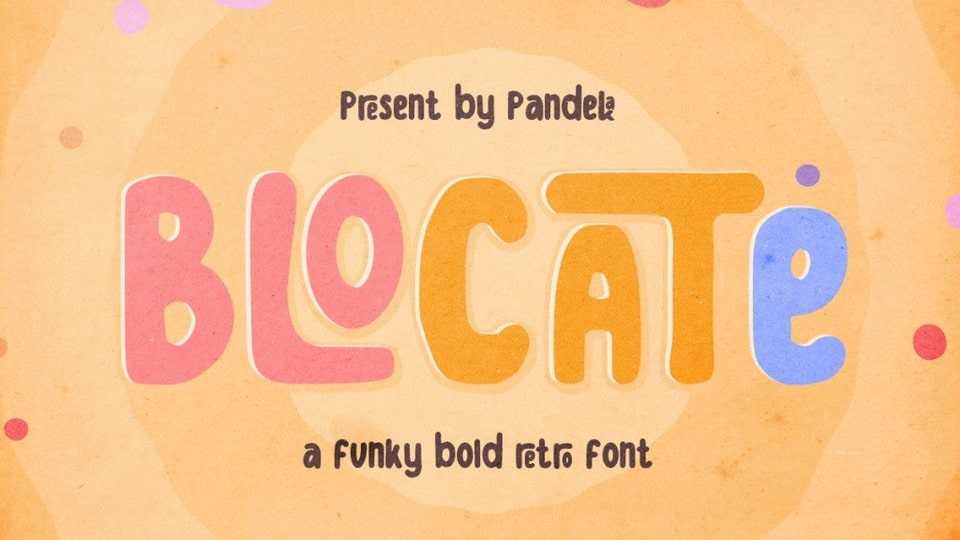
Download Blocate font, a bold retro typeface that feels clean and fun an incredible modern retro aesthetic. Use Blocate font to add that special modern retro touch.